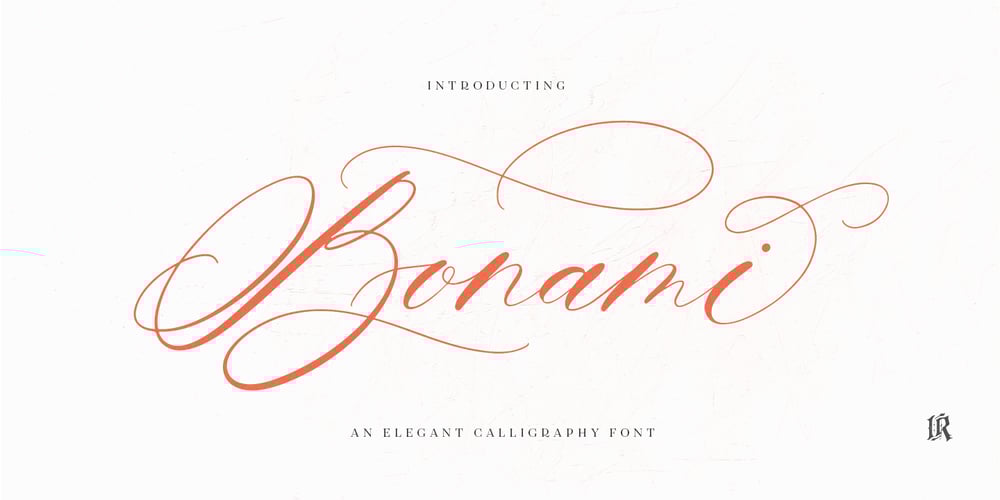
Bonami Font Family was designed by Ivan Rosenberg and published by Ivan Rosenberg. Bonami contains 1 styles and family package options. Bonami Font is a modern calligraphy font with many alternative characters and ligatures. Bonami font includes multilingual support for Western and Central Europe. These are ideal for blog website, logos. instagram, branding, invitations, business cards, weddings and many more.This hand-lettered font comes with 4 up to 20 alternates for both uppercase and lowercase characters, beginning and ending swashes and ligatures for different styles.For access to Stylistic Alternates is required software with glyphs panel like Photoshop and lllustrator. No special software is required to use Ligatures.If you have any questions or suggestions don’t hesitate to contact me.Ivan